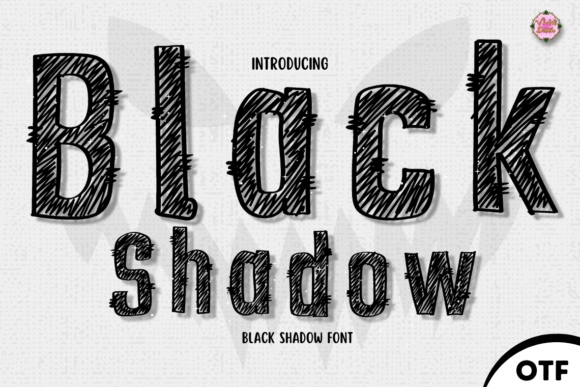
The Midnight Muse: Unleashing Creativity with Black Shadow Font
I’ll never forget the design project that led me to discover Black Shadow Font. I was working on a Halloween-themed campaign for a client, and I was struggling to find the perfect font to capture the essence of a spooky night. The client wanted something that would add a touch of mystery and intrigue to their designs, but I was coming up blank. That’s when I stumbled upon Black Shadow Font, and it was love at first sight! ✨
A Designer’s Best Friend: Black Shadow Font Review
So, what makes Black Shadow Font so special? Let’s dive into the good stuff! 😊
- ✨ Unique design with a touch of midnight mystique
- ✅ Perfect for Halloween-themed projects and nightscapes
- ✅ Adds an air of urban cool to graffiti-style artwork
- ✅ Elevates sketches with its artistic flair
While Black Shadow Font is a stunning addition to any design project, there are a few things to keep in mind: 🤔
- ⚠️ Some characters may appear a bit condensed, so be mindful of spacing
- ⚠️ Not ideal for body text or long paragraphs, as it’s best suited for headlines and titles
- Experiment with OpenType features, such as glyphs and stylistic alternates, to add more flair to your designs
The Story Behind Black Shadow Font:
While the true story behind Black Shadow Font remains a mystery, it’s said that the designer was inspired by the urban landscapes of New York City at night. The goal was to create a font that captured the essence of the city’s dark, gritty charm. 💡
Q: What type of projects is Black Shadow Font best suited for?
A: Black Shadow Font is perfect for designs that require a touch of mystery and intrigue, such as Halloween-themed projects, nightscapes, graffiti-style artwork, and urban-inspired designs.
Q: Does Black Shadow Font support OpenType features?
A: Yes, Black Shadow Font supports OpenType features, including glyphs and stylistic alternates. This allows you to add more flair to your designs and experiment with different styles.
| Author | VividDoodle |